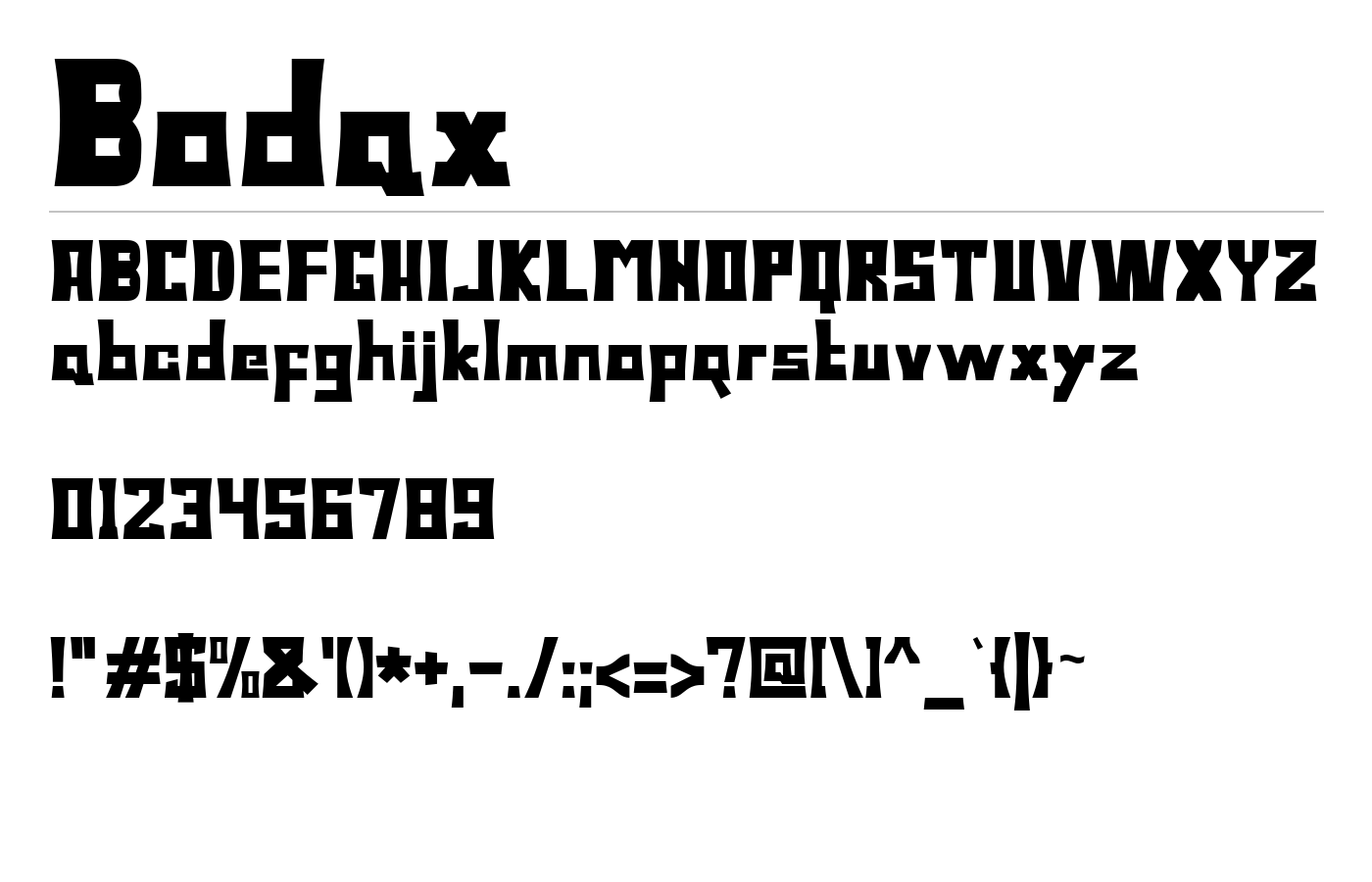
Bodax is a bold, condensed display font with a strong, geometric feel and sharp, angular letterforms that give it a striking and modern presence. Its distinct, blocky shapes and unique character details make it ideal for eye-catching headlines, posters, and branding where a bold, impactful style is needed. This font works well for creative and edgy designs that demand attention and a sense of strength.
Bodax Font
About Bodax Font
| Font family | Bodax Font |
| Designer | Risa AW - Waton Std |